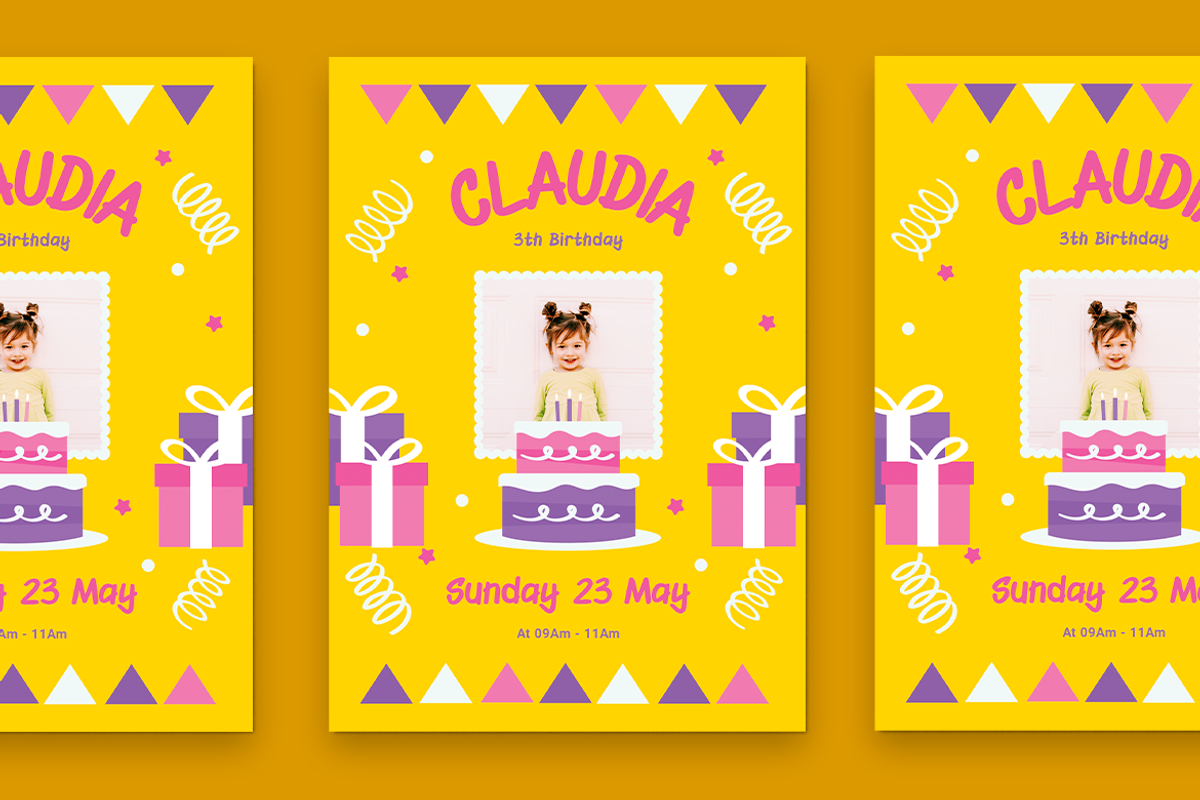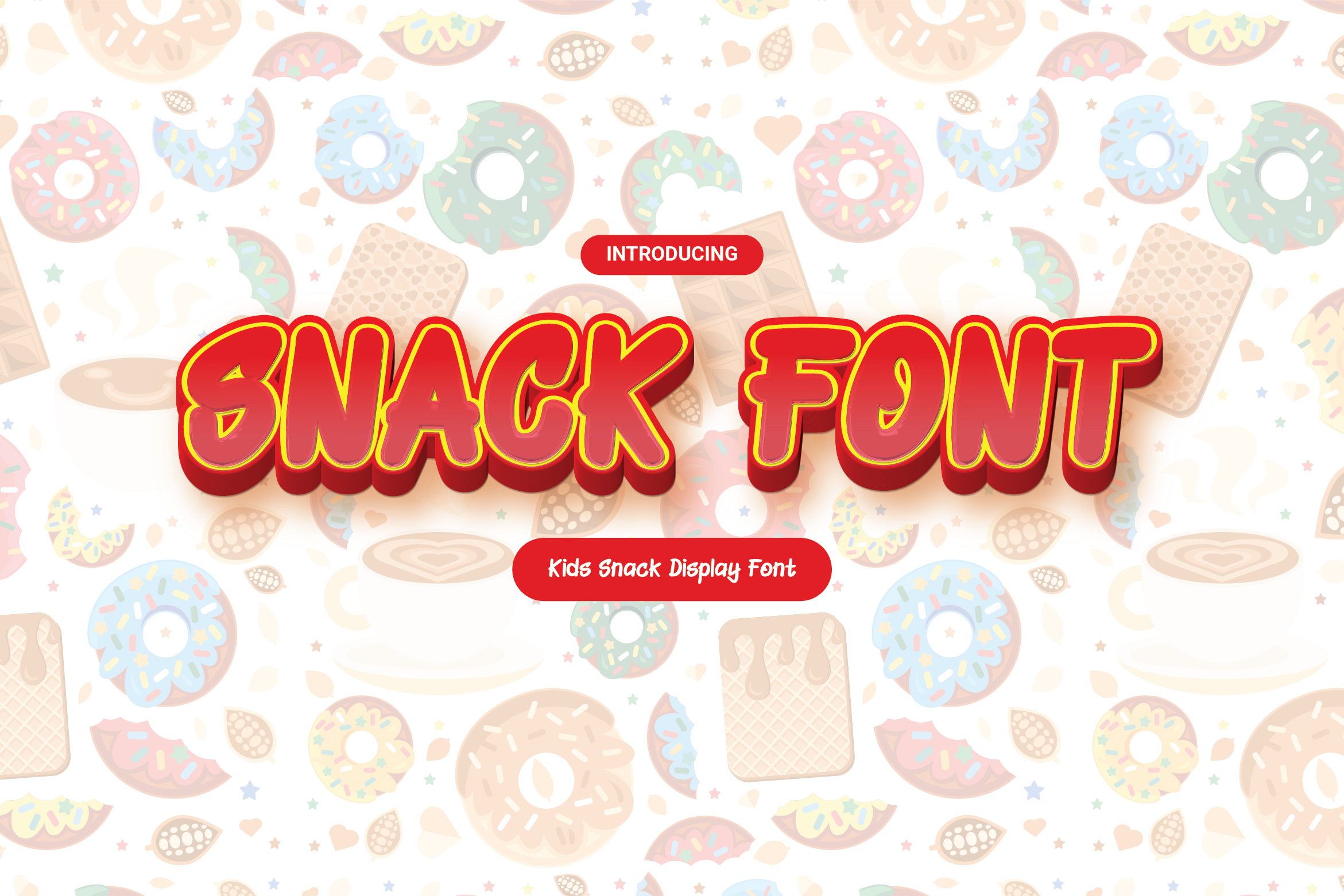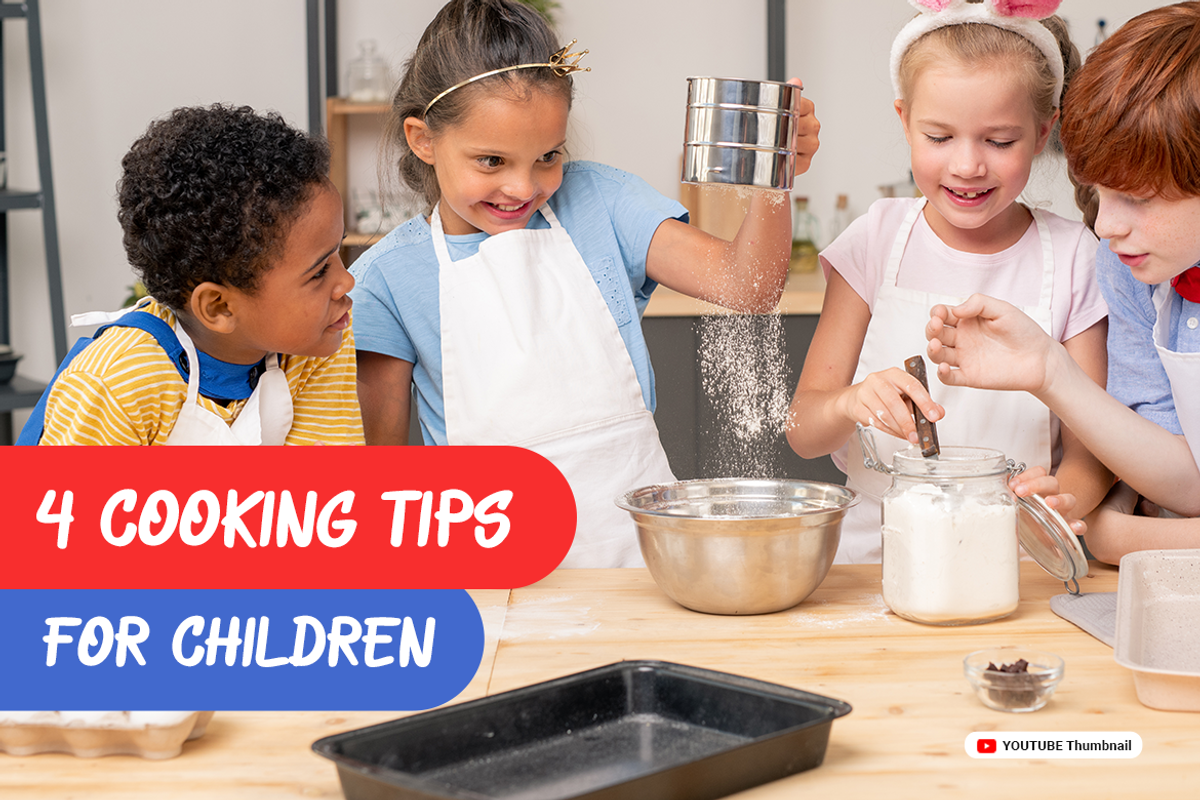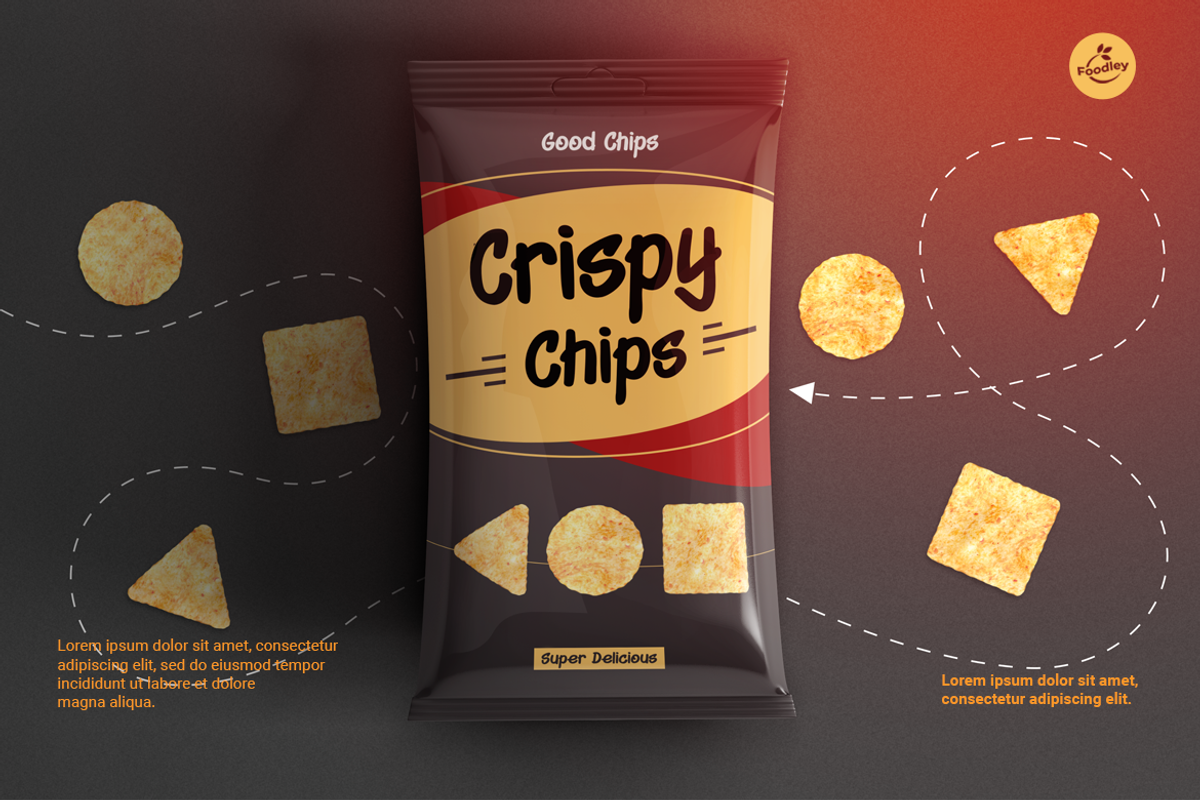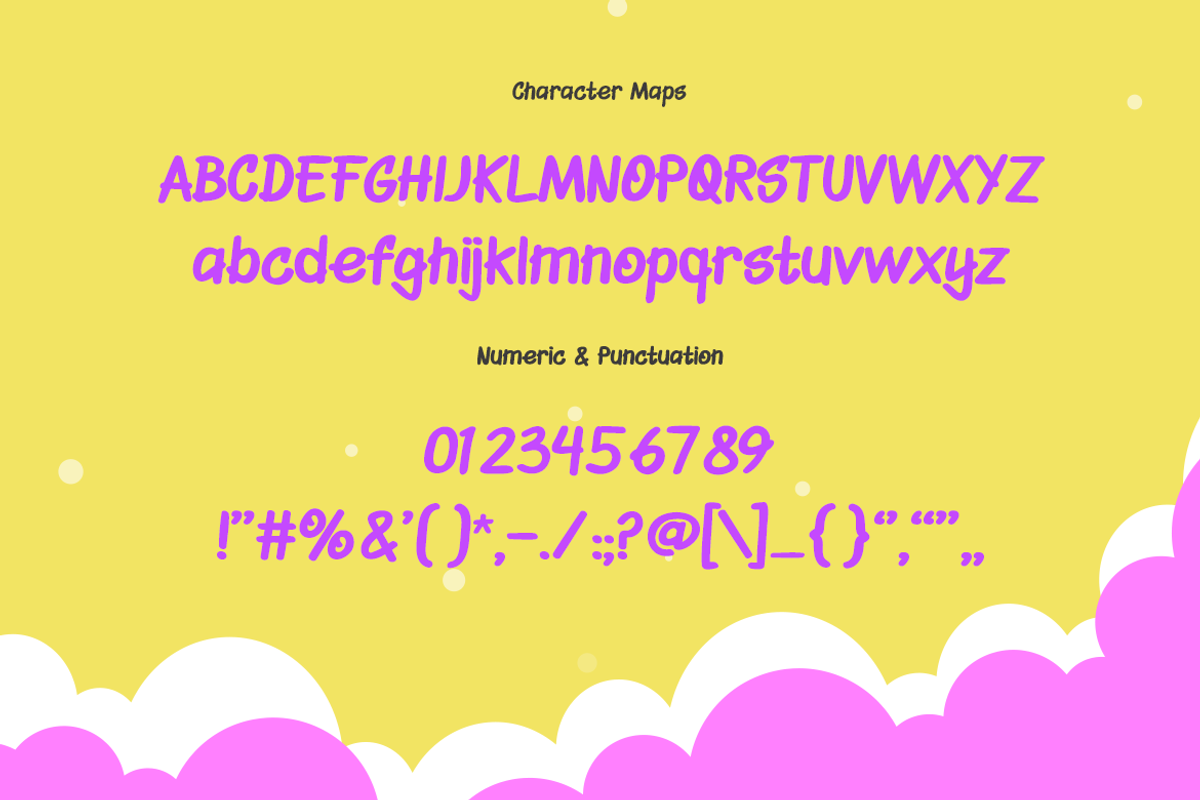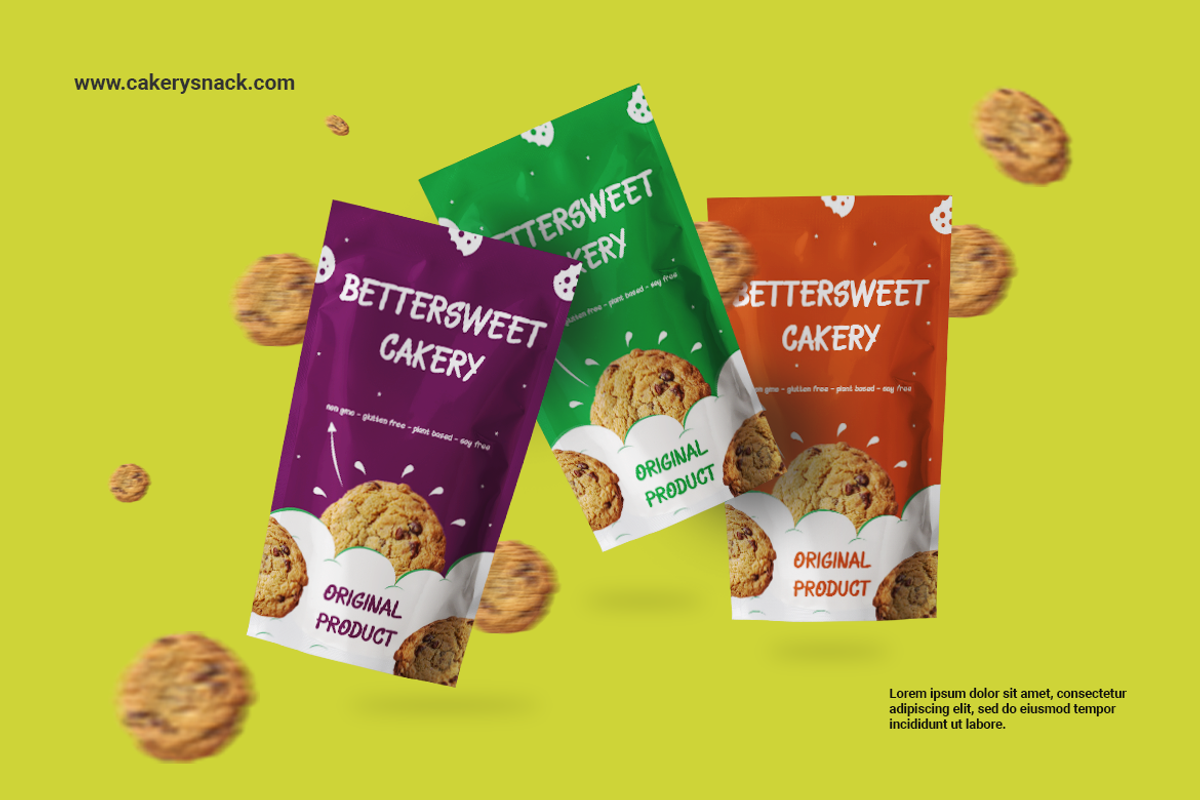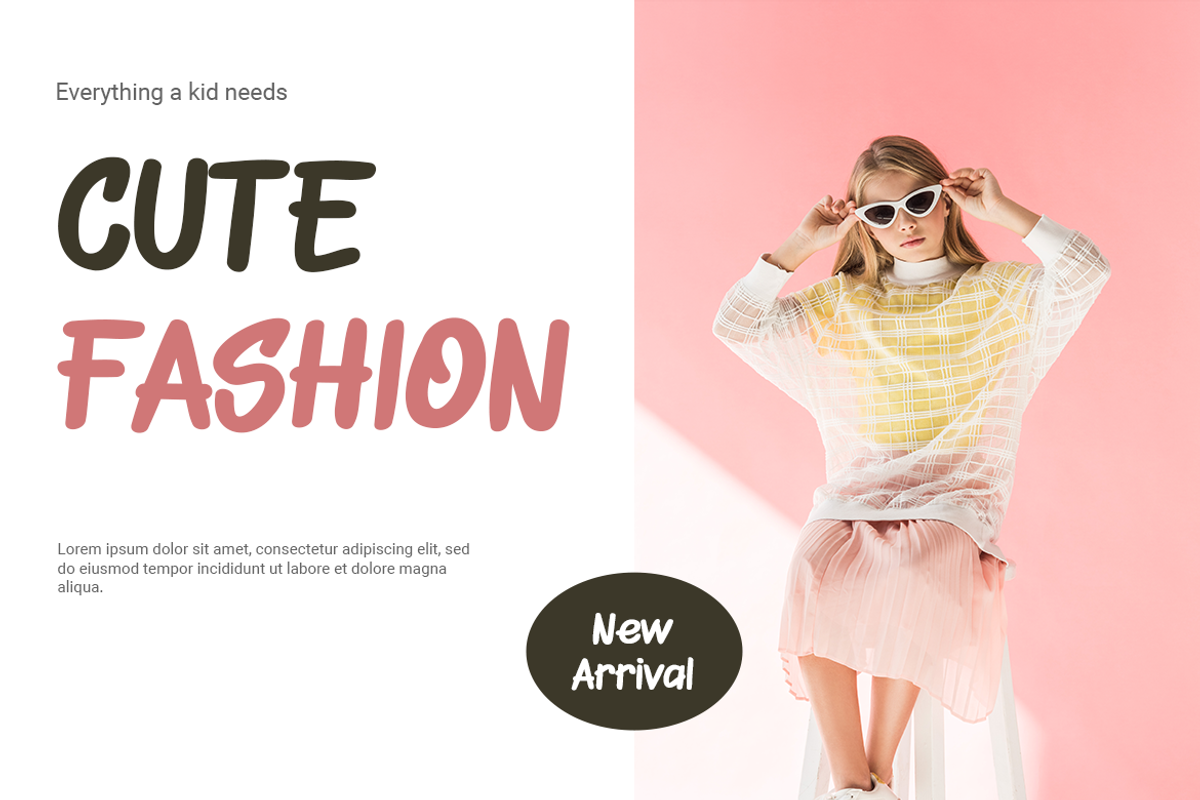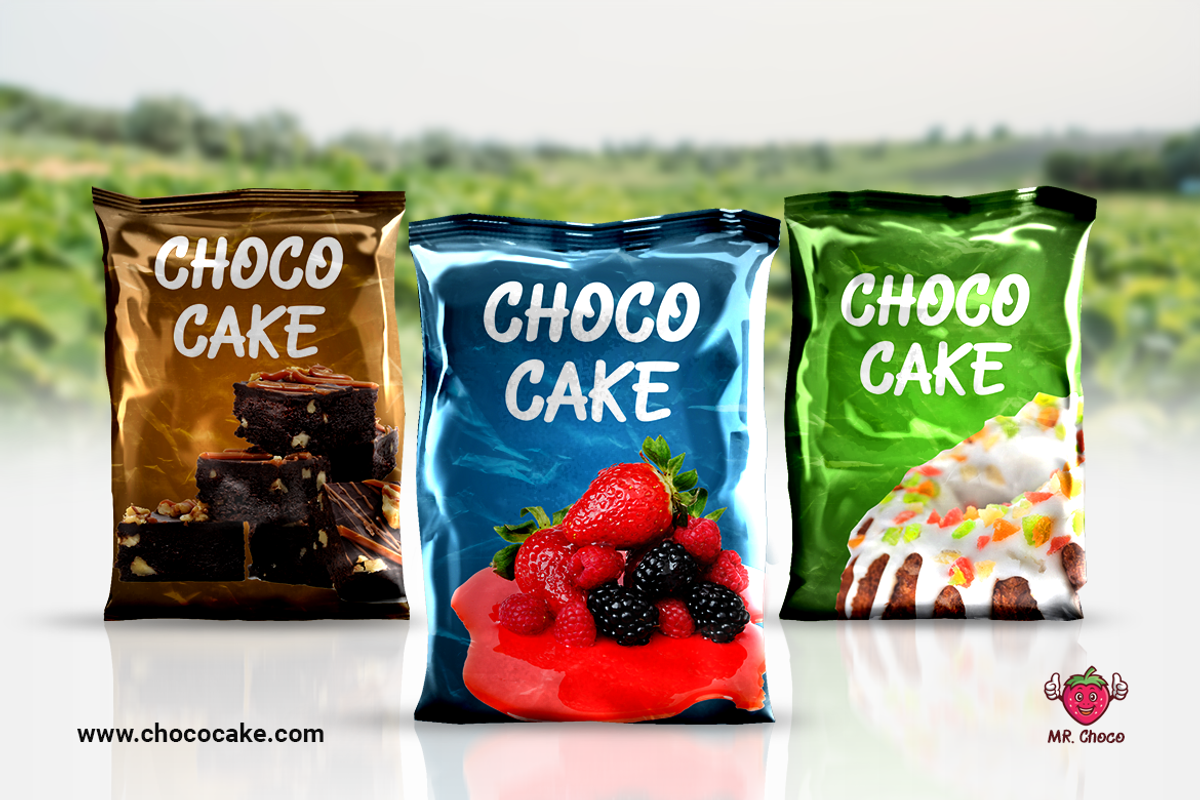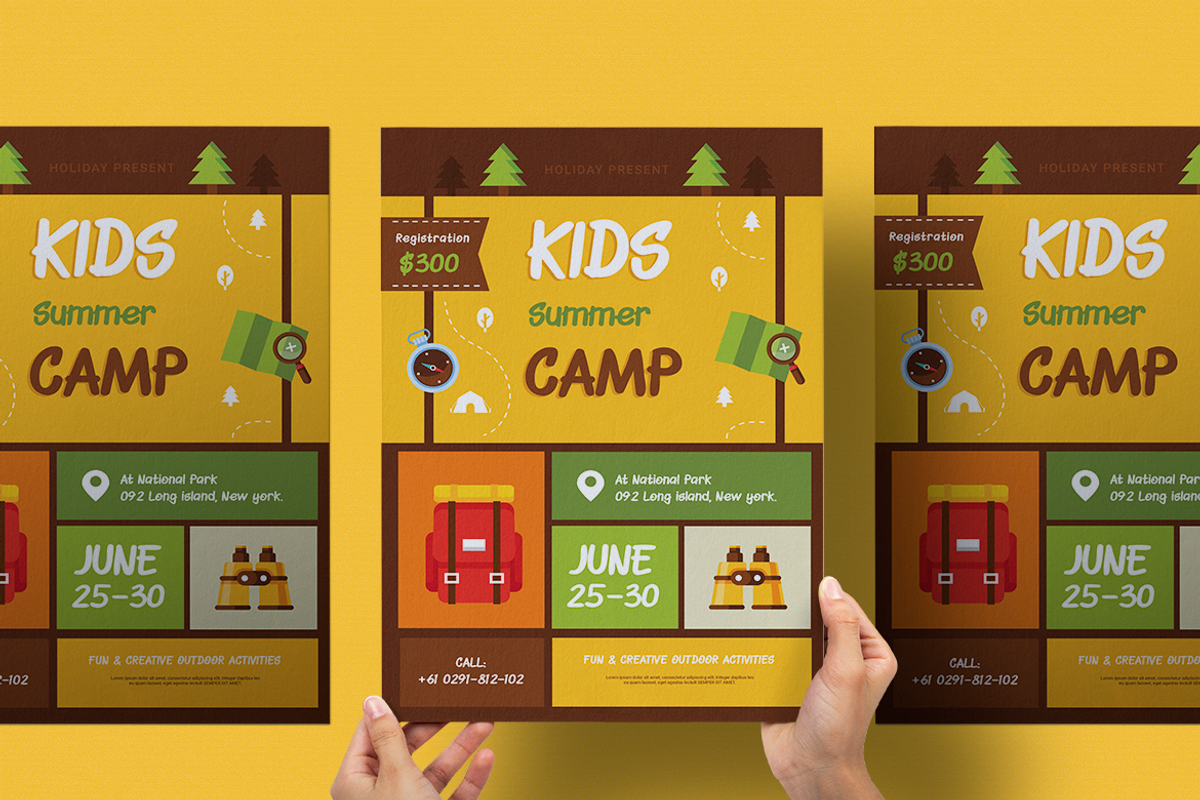
Snack Font – Kids Snack Display Font
Introducing Snack Font, the perfect font for your kids’ snack packaging and more! This playful and cute display font is perfect for any children’s product or brand that needs a fun and friendly touch.
With its cartoon-like appearance, Snack Font is sure to catch the eye of children and adults alike. Use it for movie titles, YouTube videos, book covers, or any other creative project that needs a touch of whimsy.
The font’s unique and adorable design makes it perfect for snack packaging and other food-related products. It will add a playful and fun touch to any branding campaign, making it the ideal choice for children’s products and kid-friendly businesses.
Whether you’re designing a poster, creating a logo, or making a YouTube video, Snack Font is the perfect choice for all your creative needs. So why not add some playfulness to your designs with Snack Font today?